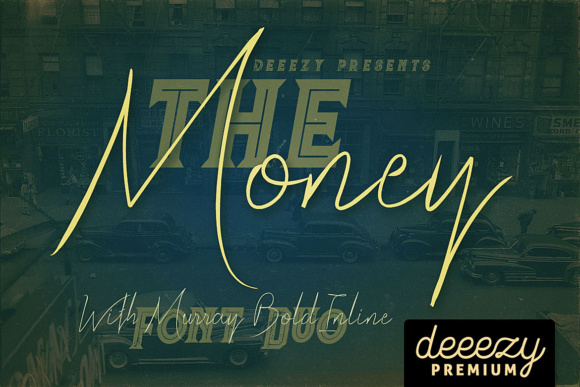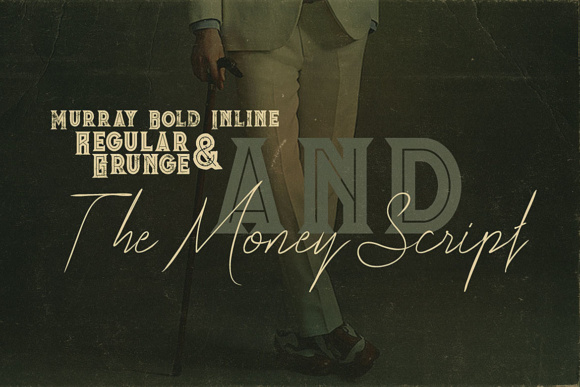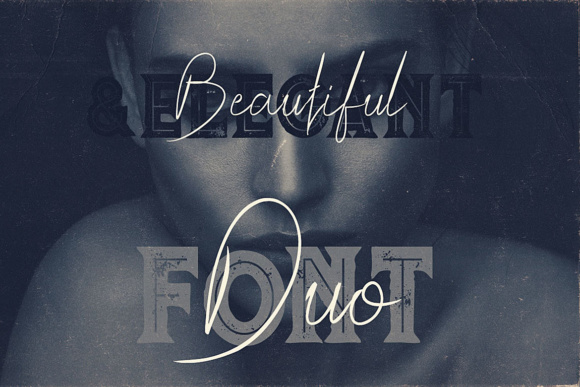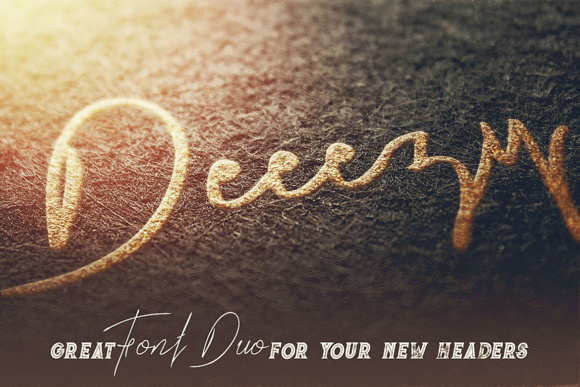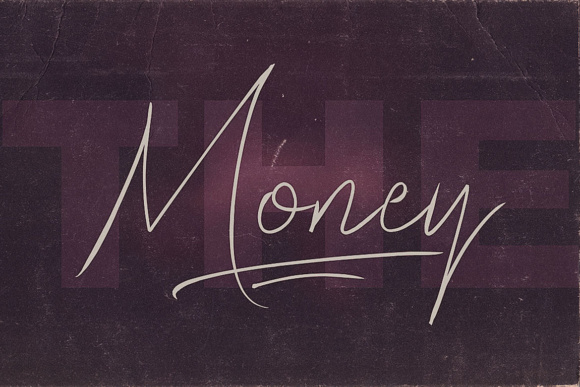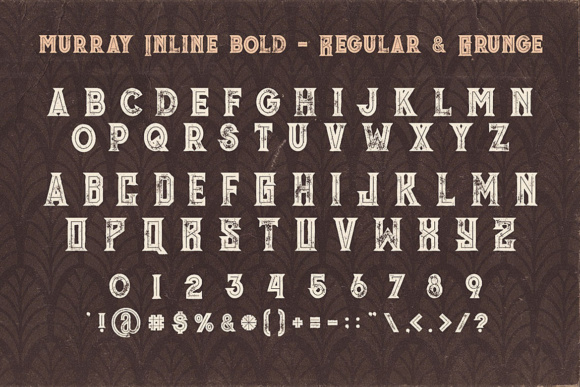
The Money Font
About The Money Font
The Money is a cool handwritten font, perfect for use in both modern and vintage designs. This thin, monoline font is a great way to add some style to your designs and comes with an added supplementary inline font.